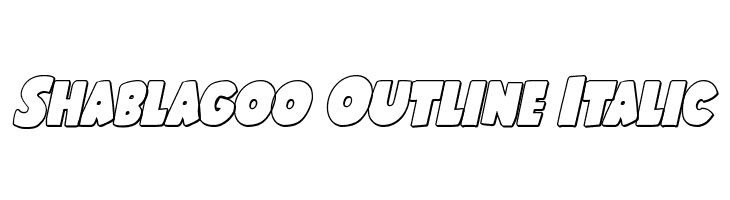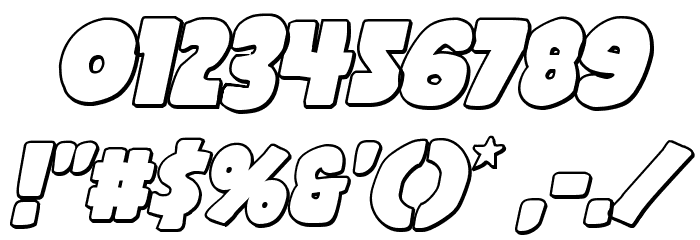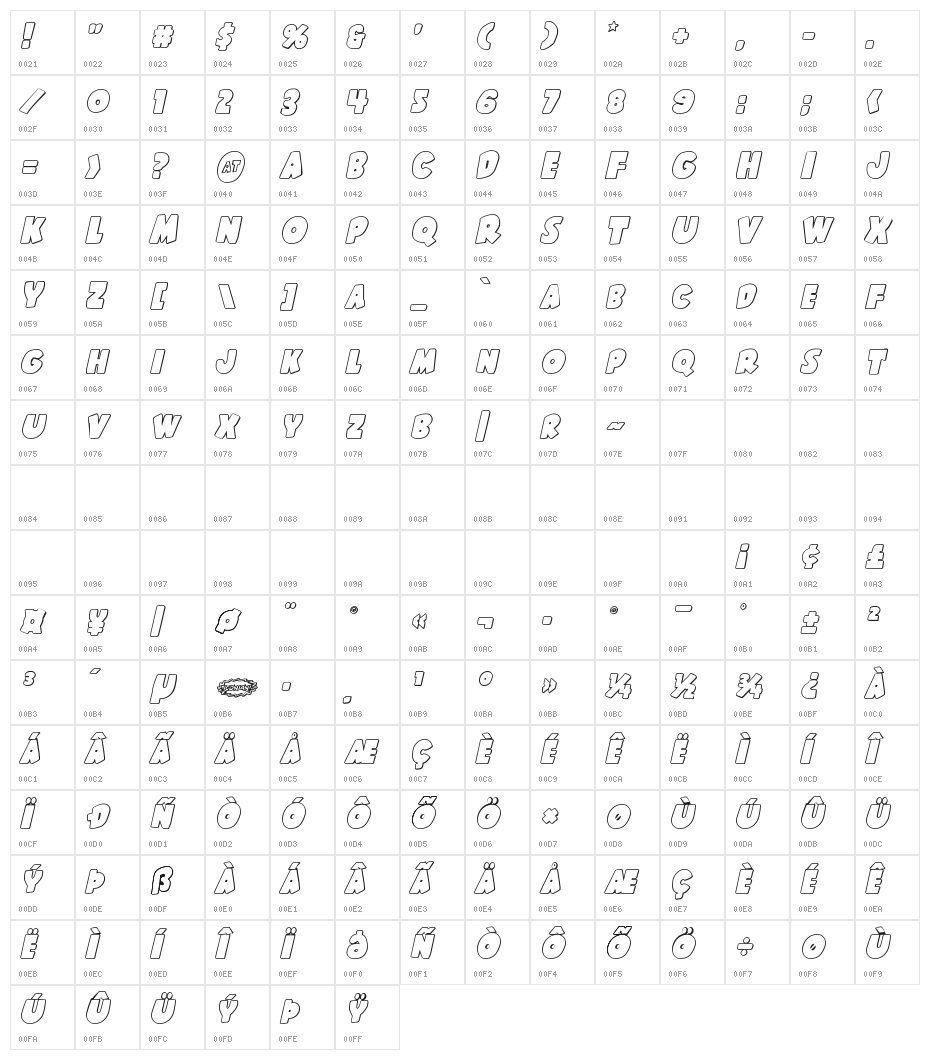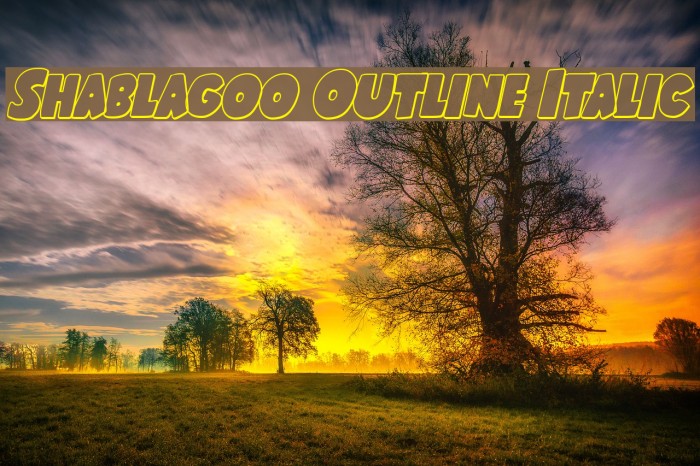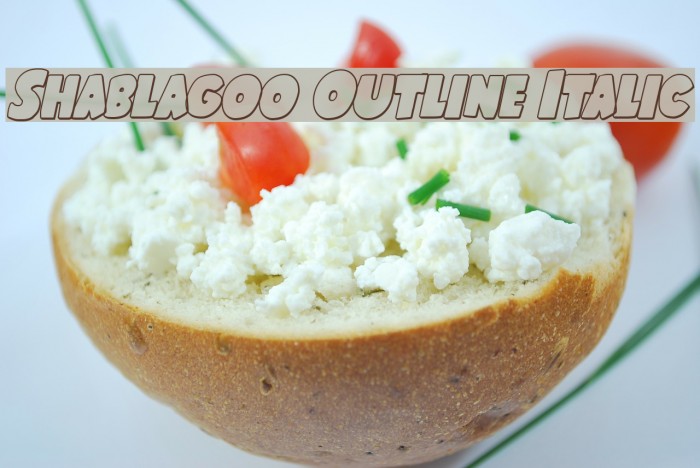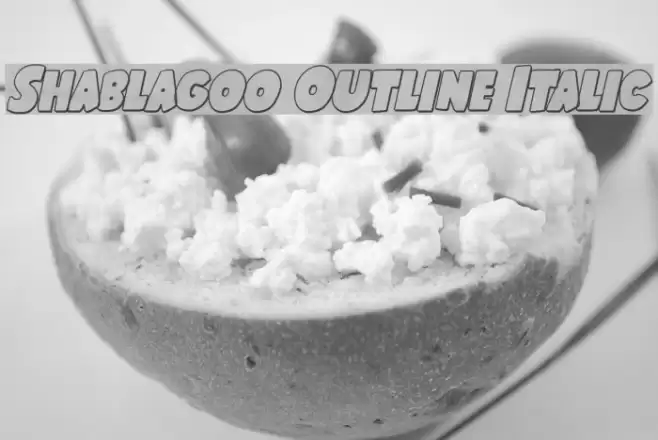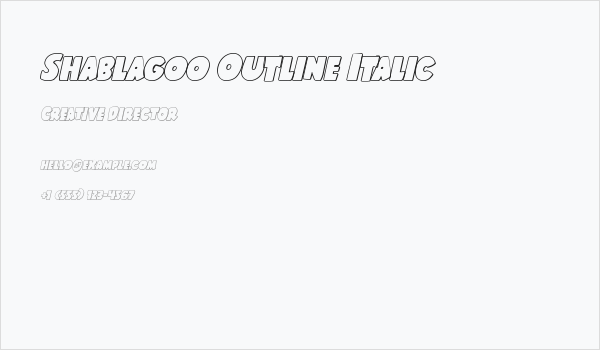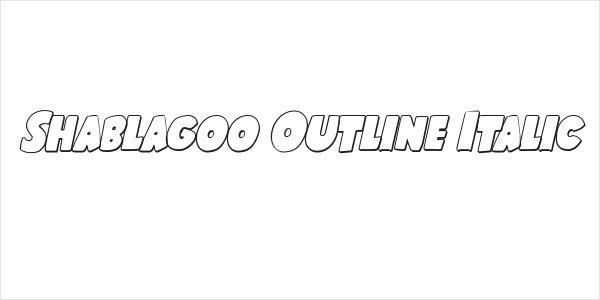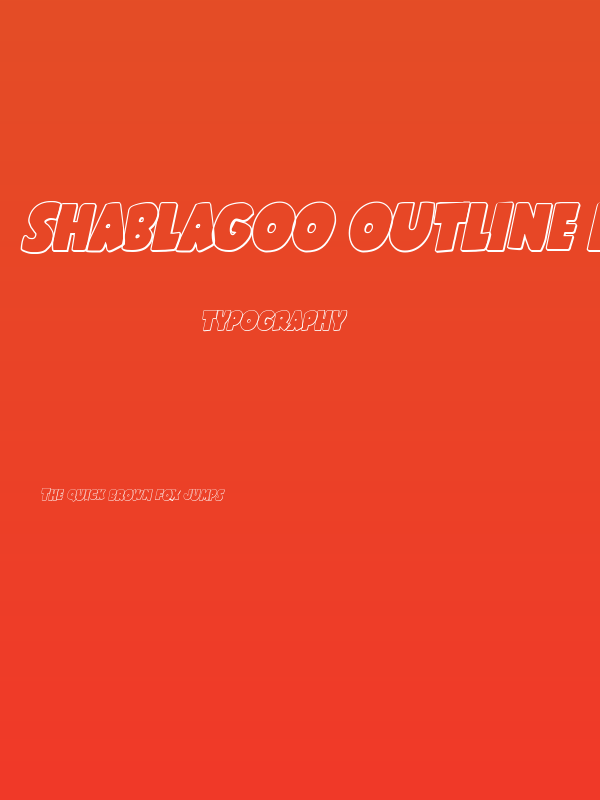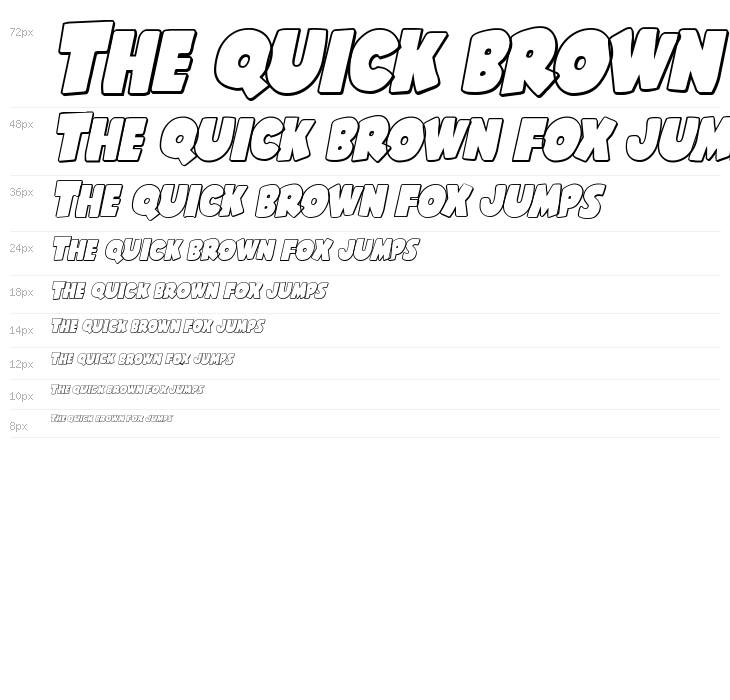
Shablagoo Outline Italic Font
Shablagoo Outline Italic Description
This font features a bold, playful outline style with a distinct italic slant, giving it a dynamic and energetic appearance. The characters are large and rounded, with a consistent thickness that creates a cohesive look. The outline effect adds depth and makes the letters stand out, making it ideal for eye-catching designs. The uppercase and lowercase letters maintain a uniform style, while the numbers and special characters complement the overall aesthetic. This font is perfect for projects that require a fun and engaging visual impact.
| Overall Style | Playful, Dynamic |
| Proposed Projects | Ideal for children's book covers, playful branding, event posters, and merchandise designs. |